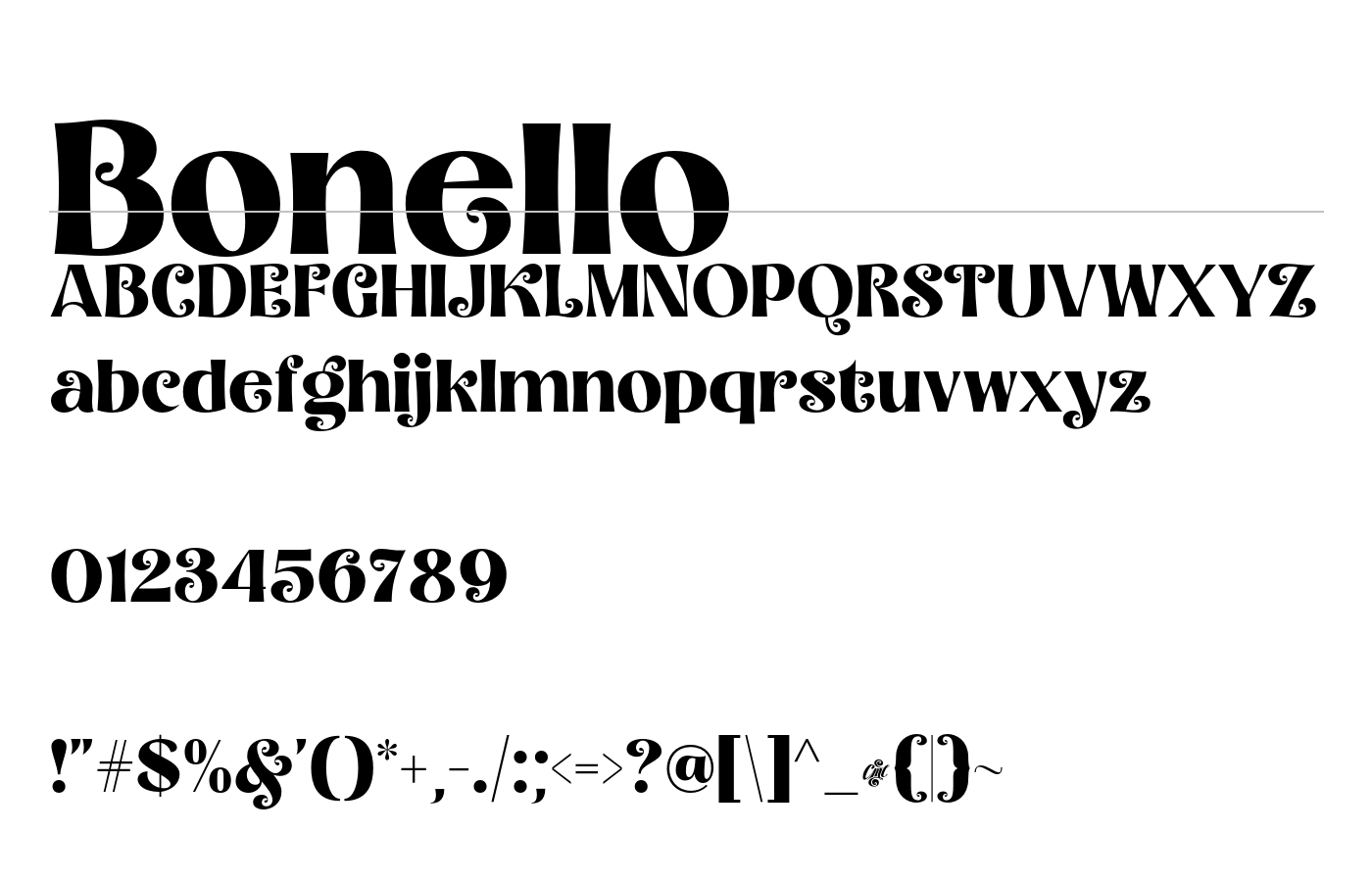
Bonello is a bold serif font with a distinctive, playful flair thanks to its whimsical curls and decorative terminals on letters like the uppercase B, G, and Q. Its high contrast between thick and thin strokes combined with wide letterforms gives it a strong, elegant presence, making it ideal for eye-catching headlines, logos, and creative branding that seeks a vintage yet lively character. This font’s unique personality suits fashion, editorial, and luxury projects that want to convey a sense of bold sophistication with an artistic twist.
Bonello Font
About Bonello Font
| Font family | Bonello Font |
| Designer | Kadek Mahardika |